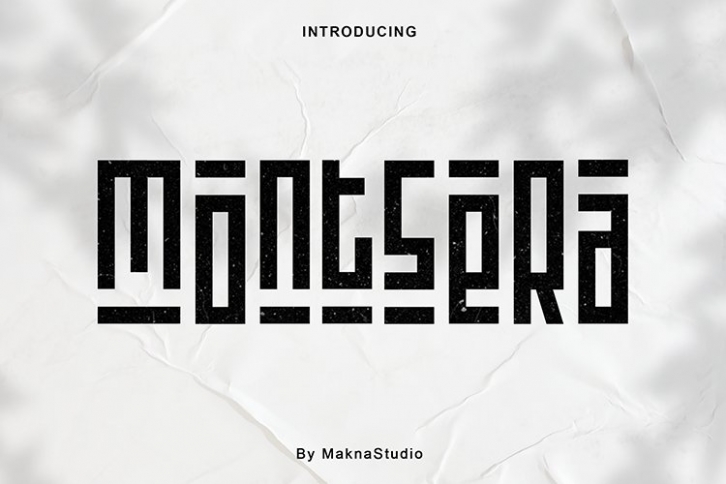
Montsera is a trendy and unique font with an authentic style. It was designed by MaknaStudio and it's a great choice for creative people who need such a font. It was released on December 8, 2020 and the file size is 15.10 MB. Montsera will add an organic vibe to any design idea!